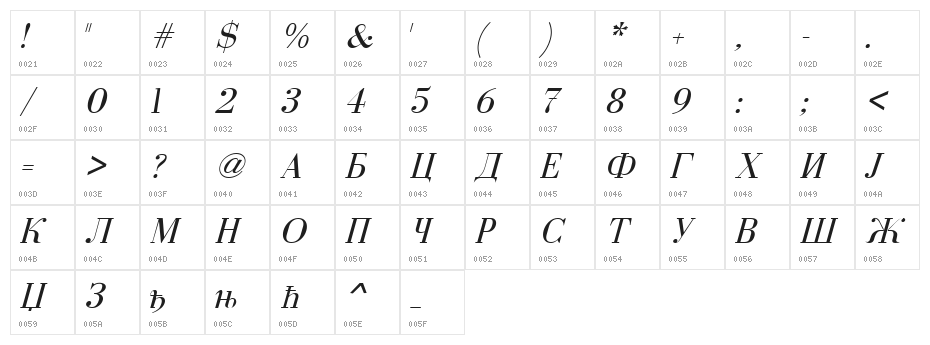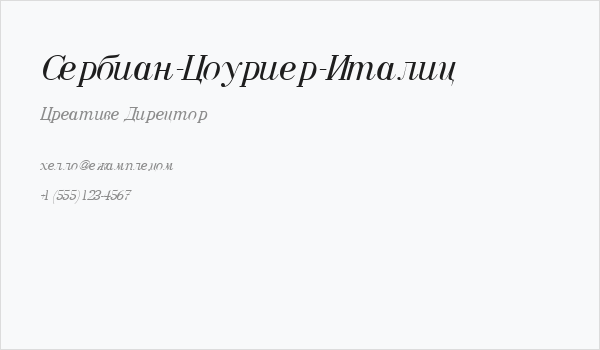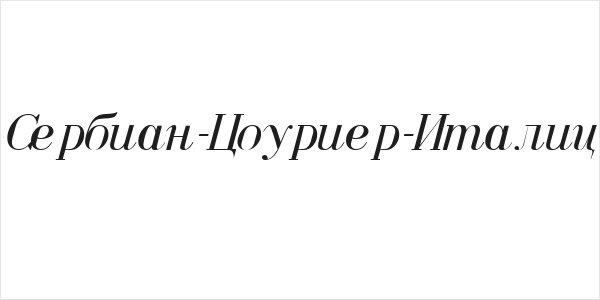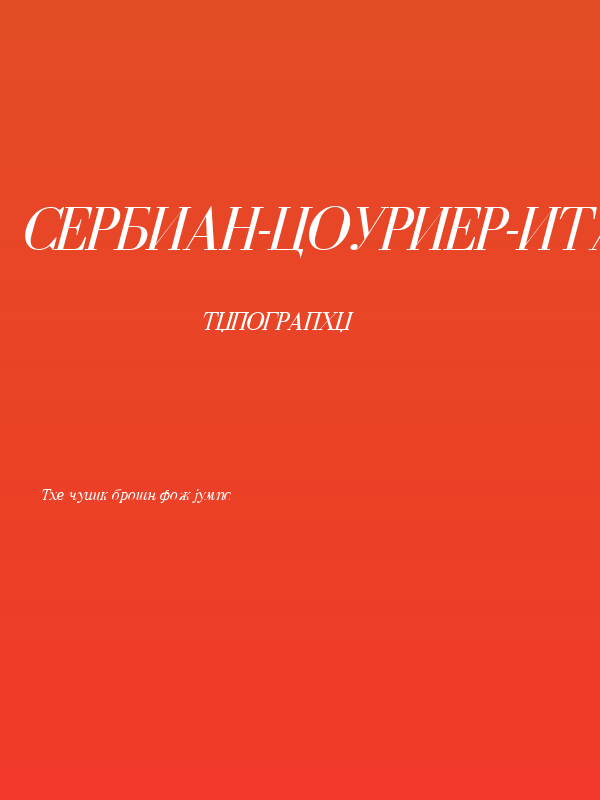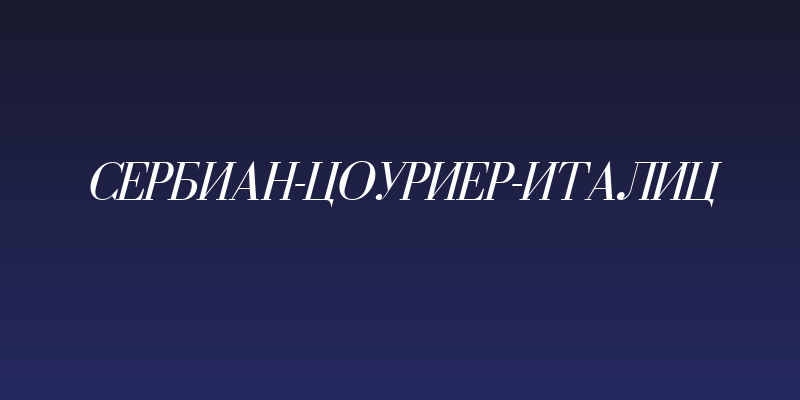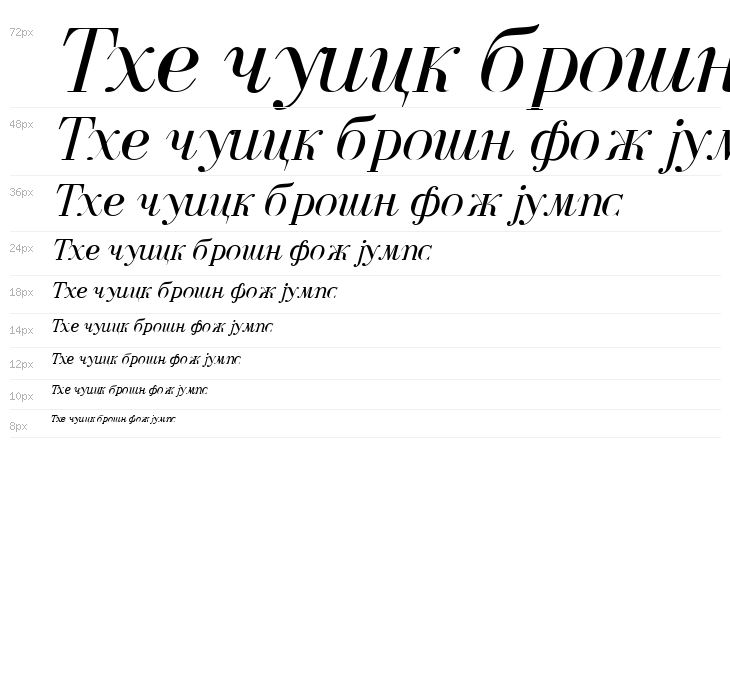
Serbian-Courier-Italic Font
Serbian-Courier-Italic Description
This font features a distinct italic style with elegant, flowing curves and a classic serif structure. The characters exhibit a harmonious balance between thick and thin strokes, creating a sophisticated and refined appearance. The uppercase letters are bold and commanding, while the lowercase letters maintain a graceful and fluid form. The numerals are clear and consistent, complementing the overall aesthetic. Special characters are designed with the same attention to detail, ensuring versatility across various applications. This font is ideal for projects that require a touch of elegance and tradition.